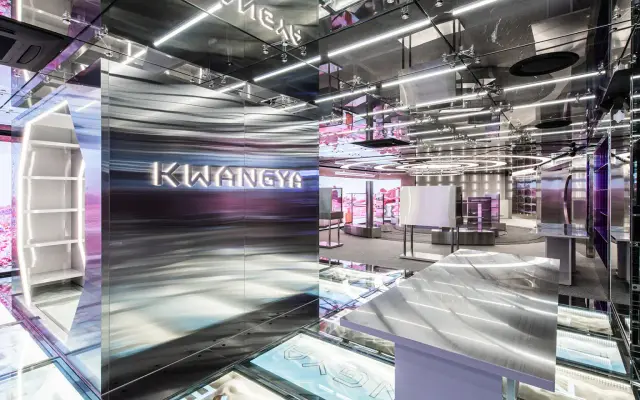
JAF Mashine
Just Another Foundry · Tim Ahrens · 2005
An all-caps display family by Tim Ahrens that tempers its geometric appearance with serif-like terminals and irregular joints, available in six weights with a rounded companion subfamily.
Despite an initial impression of strict, non-designed geometry, JAF Mashine introduces serif-like terminals and unusual stroke joints that give it a distinctive quality within the display register. The family is all-caps in construction, with stylistic alternates accessible by switching between lowercase and capital glyphs to provide visual variation. Twelve styles in total span six weights from Extralight to Extrabold across both the standard and rounded versions.
An all-caps display family with quasi-geometric construction, but serif-like terminals and unusual joints prevent it from being a pure geometric; rounded versions extend the range further into expressive display territory.